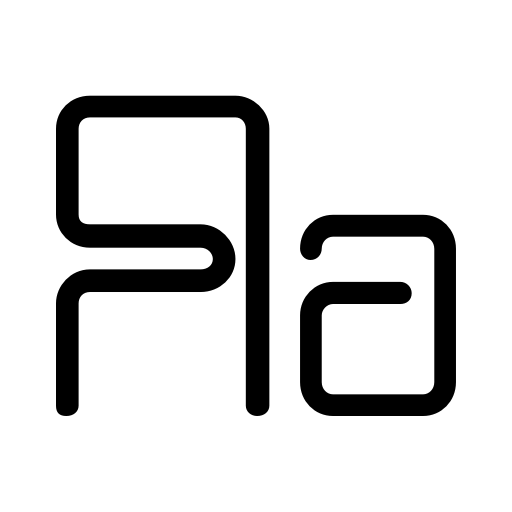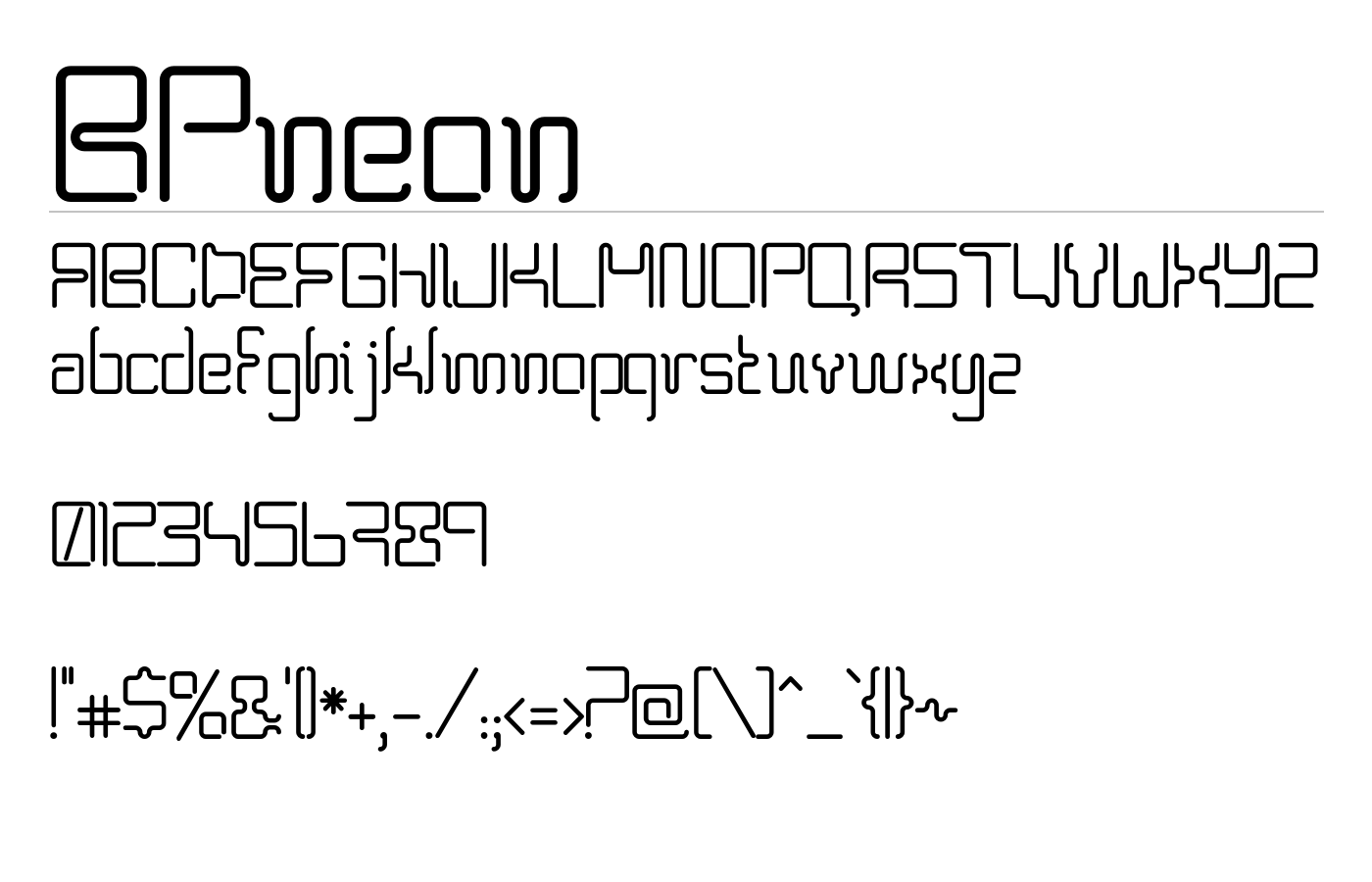
BPneon is a sleek, modern sans serif font featuring a unique, geometric outline style that evokes the look of glowing neon tubing. Its light weight, tall x-height, and rounded corners create a clean and airy feel, making it ideal for contemporary branding, digital designs, and creative headlines that need a futuristic, tech-inspired vibe. This font works especially well in projects aiming for a stylish, innovative, and eye-catching appearance.
BPneon Font
About BPneon Font
| Designer | George Triantafyllakos |